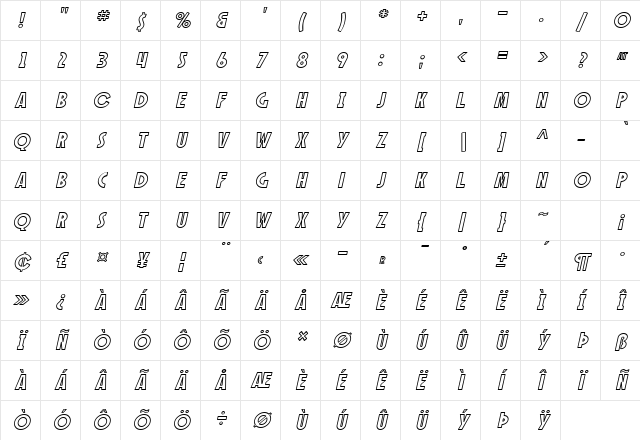
SF Speakeasy Outline Oblique
Designer: ShyFonts Type Foundry
Design Context for SF Speakeasy Outline
SF Speakeasy Outline is built around its visual character rather than neutral utility - its distinctive forms are designed to make an impression at display sizes. The slanted form adds forward momentum and visual energy.
Font Pairing: Pair with a clean neutral sans-serif for body copy to let SF Speakeasy Outline's character lead without overwhelming the composition.
Pro Tip: Use SF Speakeasy Outline exclusively at display sizes - it was designed to be seen, not read at length. Let a neutral companion handle body copy.